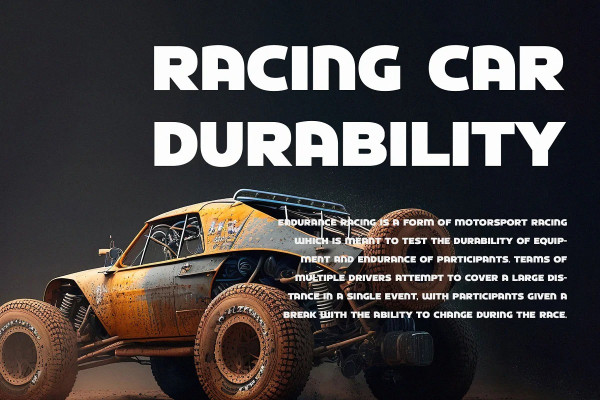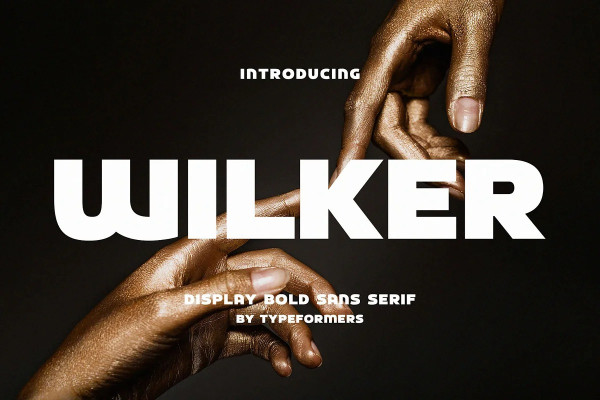
Wilker Font
Wilker Font – Display Bold Sans, is a modern and simple font, best used as a display for headings, logos, branding, magazines, product packaging and invitations.